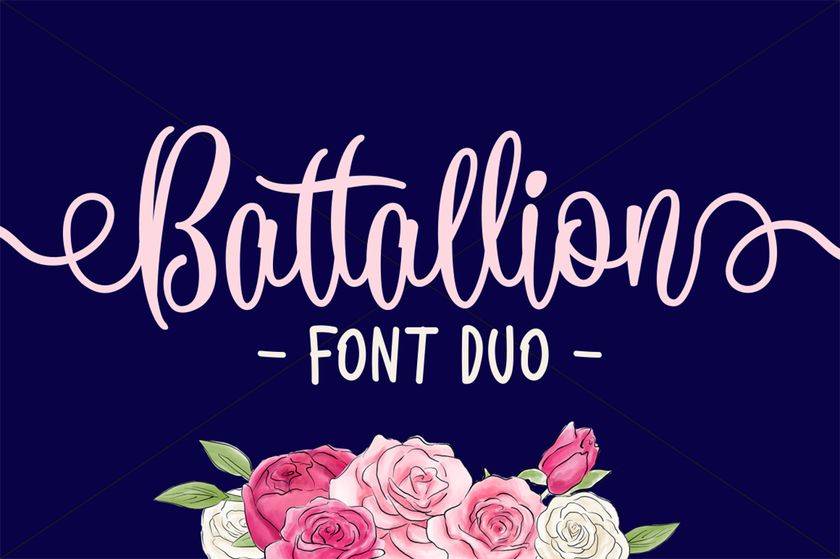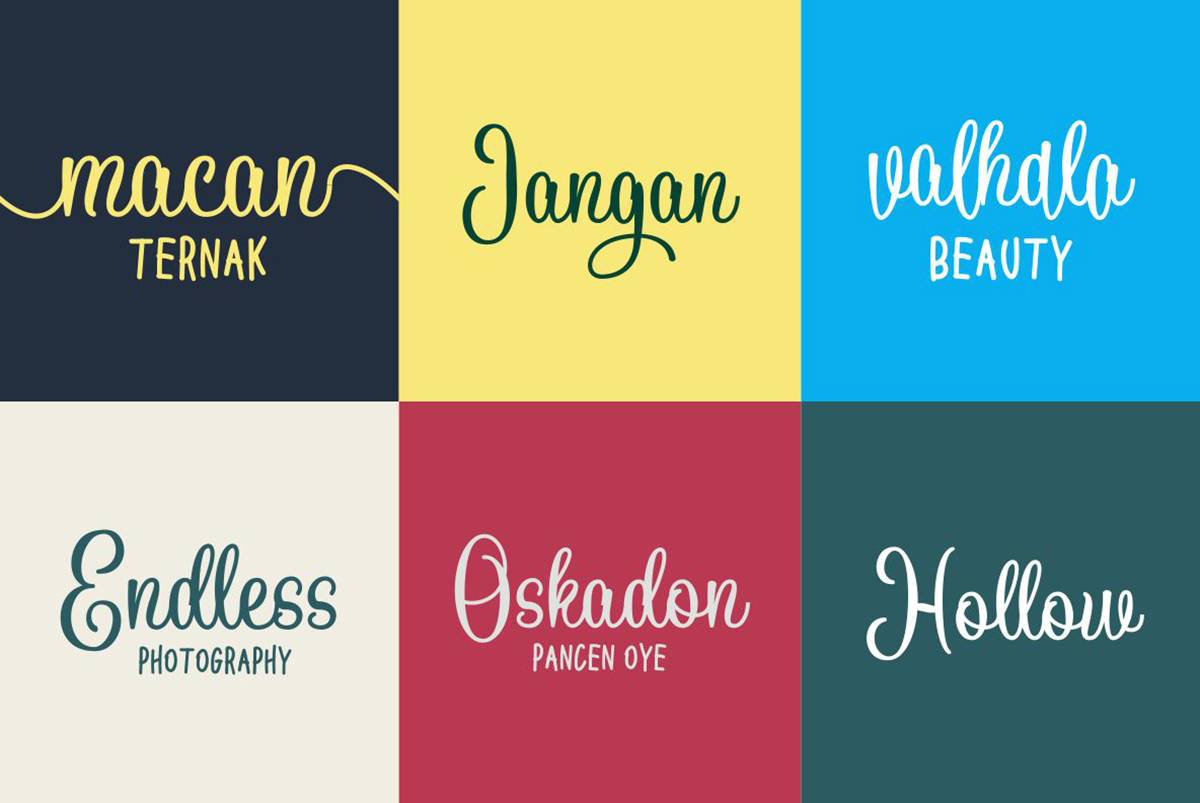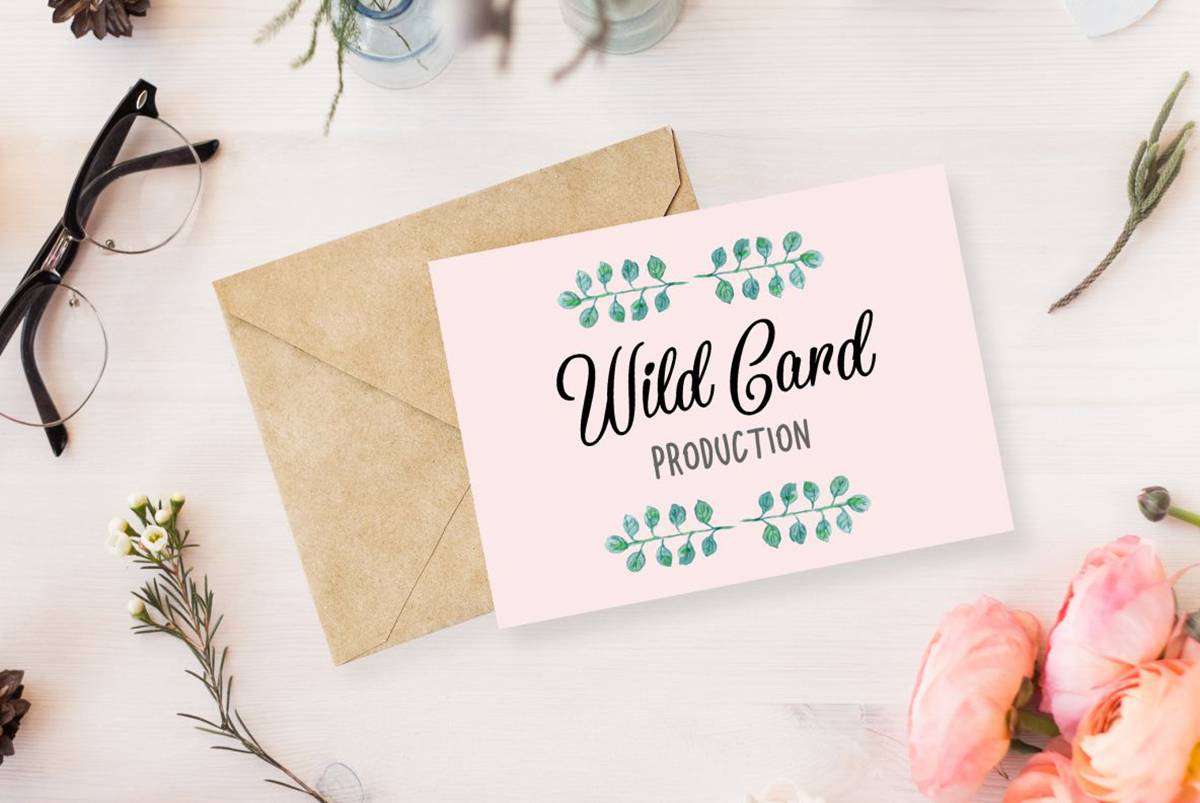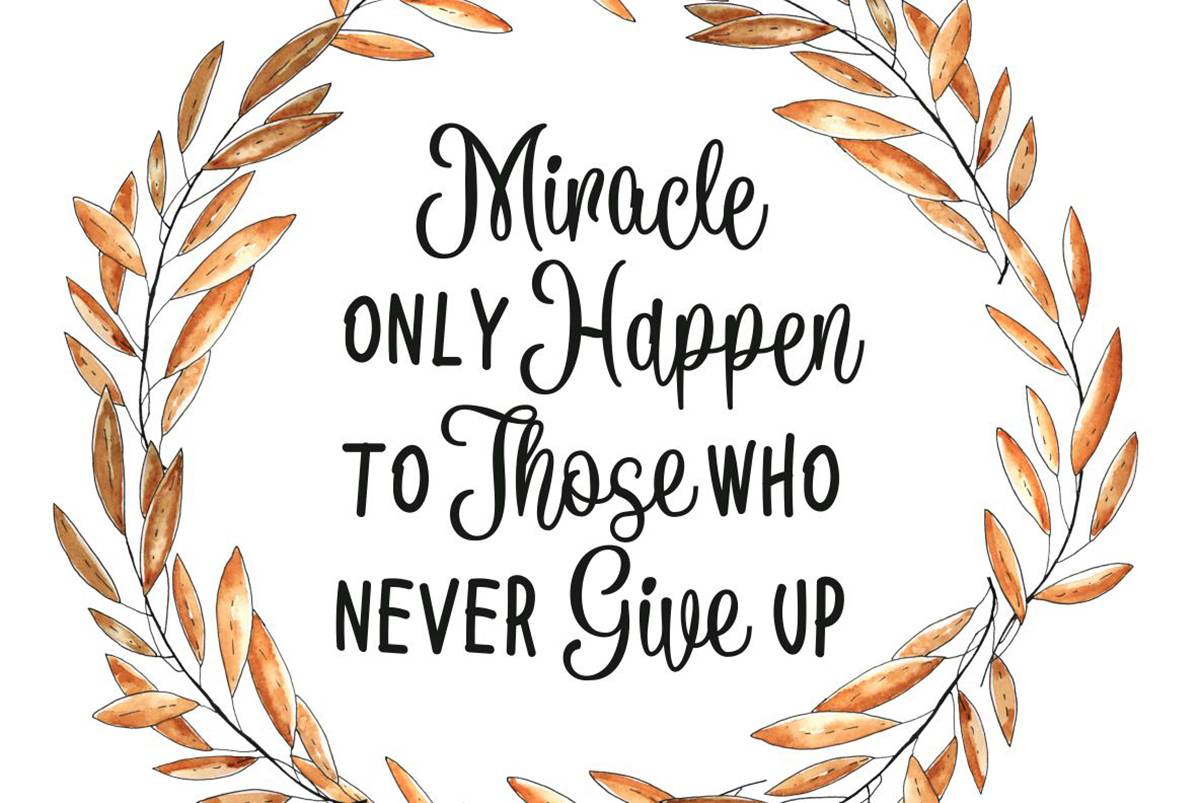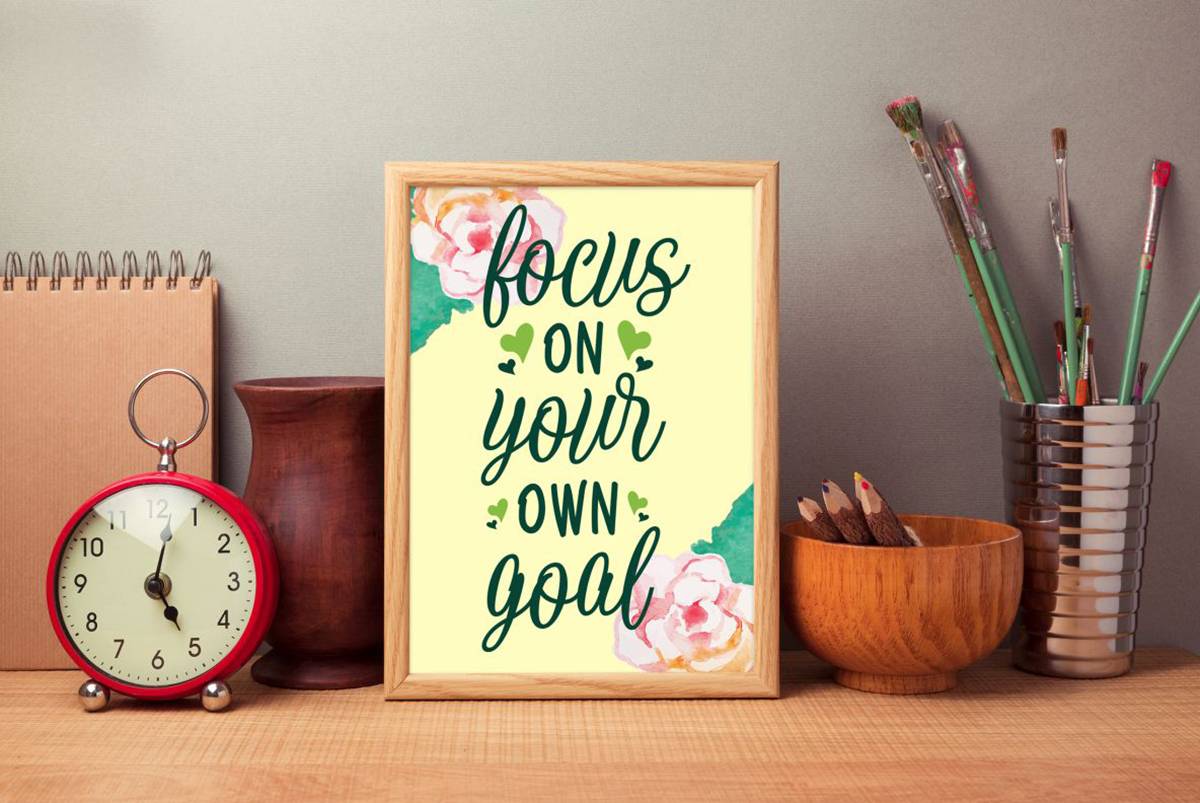
Battallion is a graceful script font featuring elegant, flowing letterforms with a slightly condensed width and consistent medium weight. Its smooth, rounded strokes and distinct swashes give it a charming, hand-lettered feel that works beautifully for invitations, branding, and creative headlines where a personal, artistic touch is desired. This font shines in designs seeking a warm, stylish, and approachable look.
Battallion Font
About Battallion Font